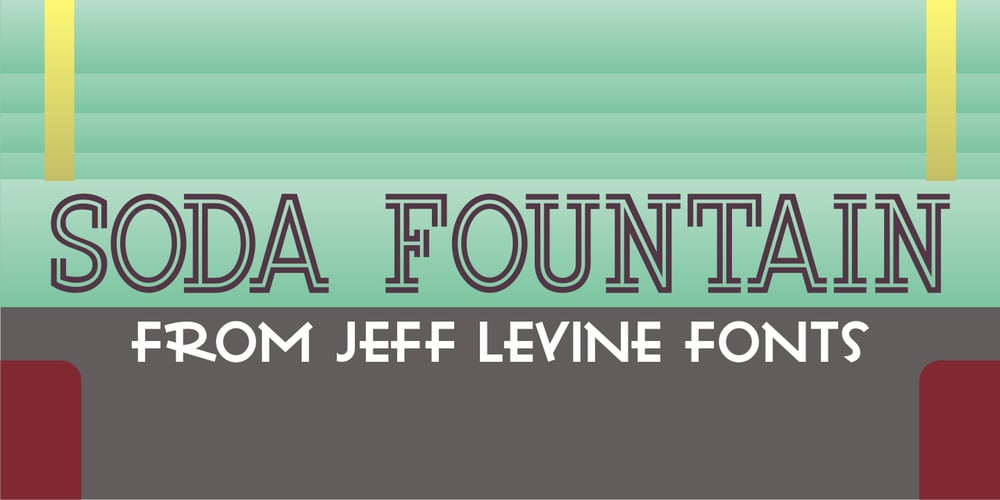
Soda Fountain JNL Font Family was designed by Jeff Levine and published by Jeff Levine. Soda Fountain JNL contains 1 styles and family package options. In most cities during the 1950s and 1960s the corner pharmacy or soda shop was a mainstay of teenage life. It was a place to hang out with friends, hear the latest hits on the jukebox and indulge in everything sugary from malted milkshakes to banana splits. During this time, a popular form of window advertising was supplied by the Coca-Cola Company to promote its product being served by these locations. Specialty window decals designed to emulate drawn (raised) Venetian blinds “bookmarked” by the soda’s logo were adhered to the shop’s windows, with a space provided to add in customized lettering. The store’s name or its specialties were applied to each window pane, and this formed a consistent border at the top of all of the shop’s windows. Although few visual images exist of this specific bit of advertising nostalgia, an old record album by a late-1950s singer named Chip Fisher called “Chipper at the Sugar Bowl” provided a somewhat usable sample for what is now Soda Fountain JNL.